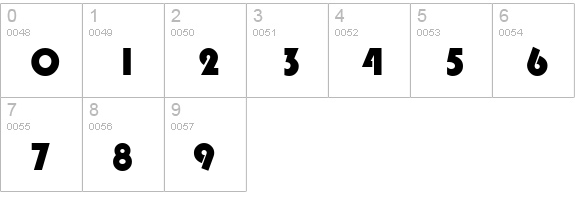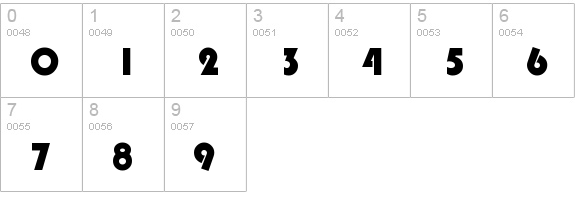
QTBlimpo Regular Font Details
QTBlimpo Regular is the standard, neutral variant in the QTBlimpo typeface family \xE2\x80\x94 well suited to general body text, paragraphs, and standard typographic work.
QTBlimpo Regular font is a perfect blend of elegance and simplicity, making it a versatile choice for various design projects. With its clean lines and balanced proportions, this font exudes a sense of modern sophistication. Featuring a wide range of characters, QTBlimpo Regular font offers great legibility and readability, ensuring that your message is effectively communicated to your audience. Its classic yet contemporary design makes it suitable for both headings and body texts, allowing you to create harmonious and visually appealing compositions. One of the best things about QTBlimpo Regular font is that it is free! Yes, you read that right. This stylish and versatile font is freely available to download at FontsMarket.com, making it accessible to everyone, from professional designers to casual enthusiasts. Whether you are working on a branding project, designing a website, or creating eye-catching social media graphics, QTBlimpo Regular font is a reliable choice that will add a touch of sophistication to your designs. Its timeless appeal and modern aesthetic make it a go-to font for any design project. So why wait? Enhance your designs with the elegance and versatility of QTBlimpo Regular font, and download it for free at FontsMarket.com today. Unleash your creativity and let this font elevate your designs to new heights.